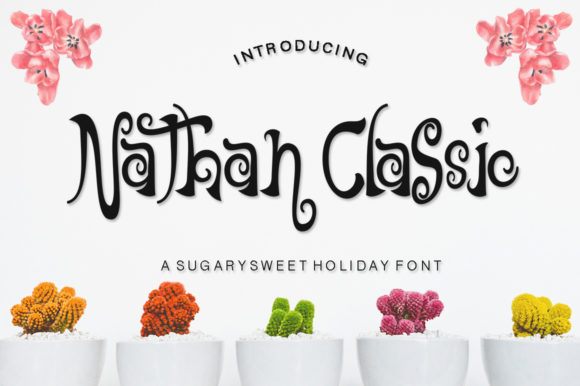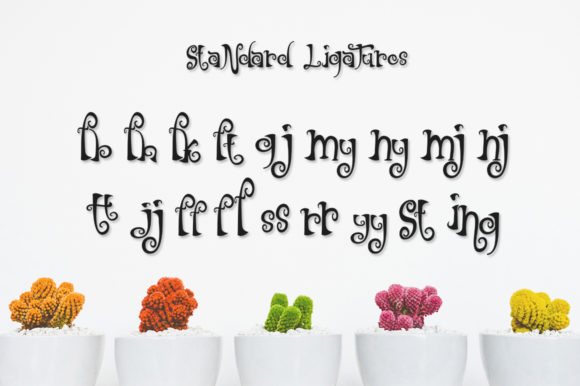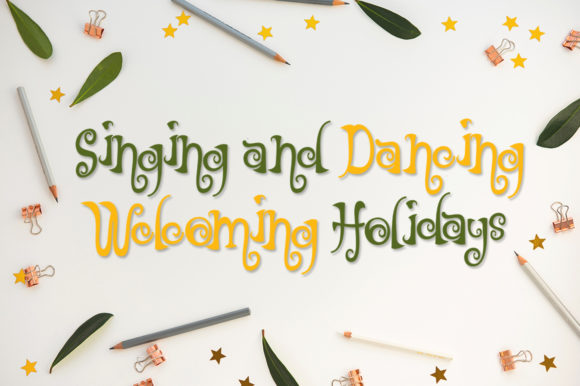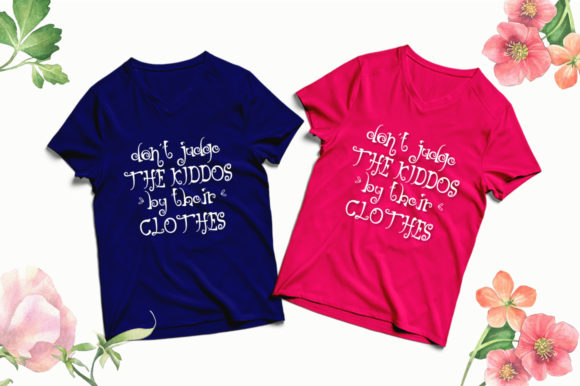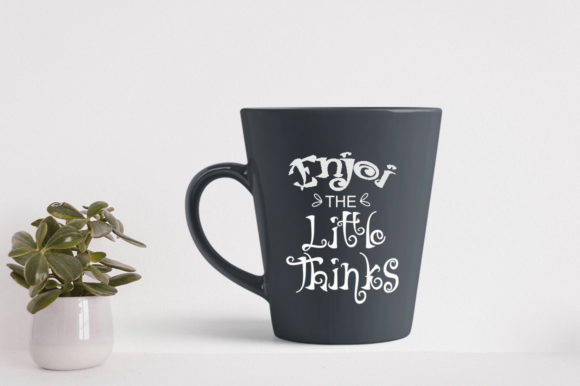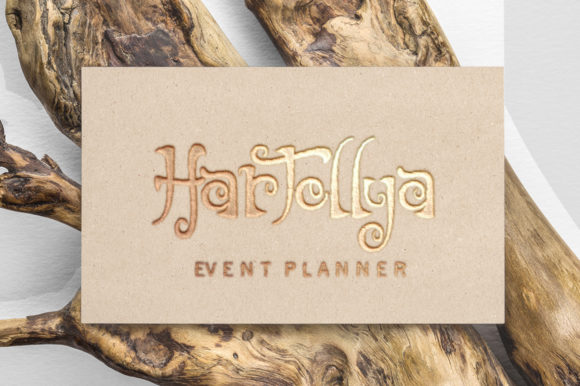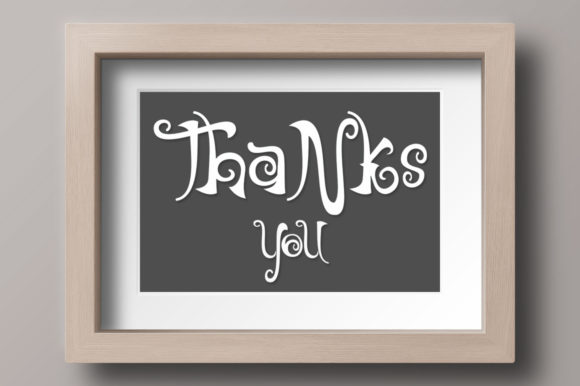
HomeScript FontsNathan Classic Font Script Fonts Nathan Classic Font FacebookXPinterestWhatsApp Nathan Classic Font Poster 2 Nathan Classic Font Poster 3 Nathan Classic Font Poster 4 Nathan Classic Font Poster 5 Nathan Classic Font Poster 6 Nathan Classic Font Poster 7 About Nathan Classic Font Nathan Classic merges elegance and sweetness into one truly original script font. DOWNLOAD ON CREATIVE FABRICAThis font is sold and delivered by Creative Fabrica. Font Canyon may earn a commission if you buy through this link. People also explored Beautiful Monogram Font Creative Letter Font FT Moonshine Script Peamonger Font Benedela Font Ricky Bomb Font Aatarada Font Bloody Camp Font Sate Tahu Font 315 0 TagsNathan Classic Font Previous articleRoyal FontNext articleGokha Font LEAVE A REPLY Cancel reply Comment: Please enter your comment! Name:* Please enter your name here Email:* You have entered an incorrect email address! Please enter your email address here Website: Save my name, email, and website in this browser for the next time I comment. Personal Use Free Engebrechtre Personal Use Free Read more about this font Bintang Noela Personal Use Free Read more about this font Unispace Personal Use Free Read more about this font Jilliant Personal Use Free Read more about this font BLOG Top 10 Handwritten Fonts That Elevate Your Designs Top 10 Handwritten Fonts That Will Elevate Your Designs Handwritten fonts bring a warm, personal touch to every creative project. Whether you're designing logos, invitations,... Modern Sans-Serif Fonts That Brands Love in 2025 Fonts That Capture the Spirit of New York City How to Install and Use Fonts on Windows, macOS, and Web Projects